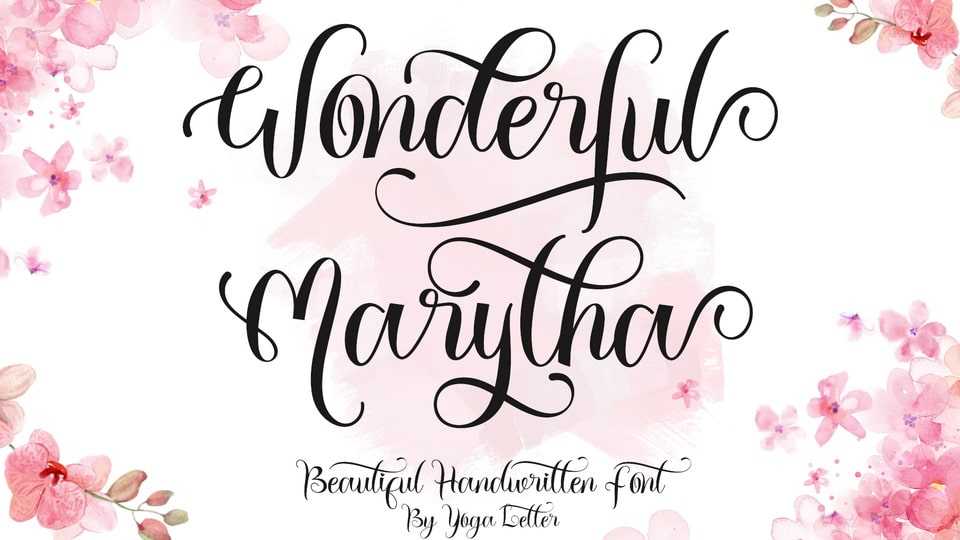
Download Wonderful Marytha font, a beautiful and unique handwritten typeface. It’s perfect for invitations, weddings, certificates, business branding, Christmas, fall, winter, Valentine’s Day, and more.